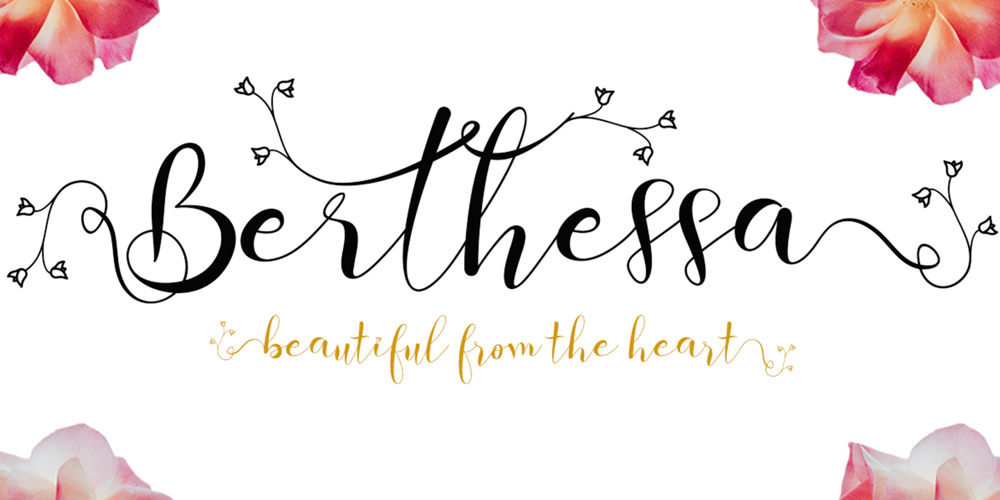
Berthessa Font Family was designed by Isroni Yoga Prasetya and published by Yoga Letter. Berthessa contains 1 styles and family package options. “Berthessa” is a beautiful handwritten font with floral decorations on the alternate letters. This font is perfect for weddings, marketing your business, quotes, invitations, logos, branding and more. Equipped with uppercase letters, lowercase letters, numerals, punctuations, swash, titling, uppercase alternates, ligatures and multilingual support.